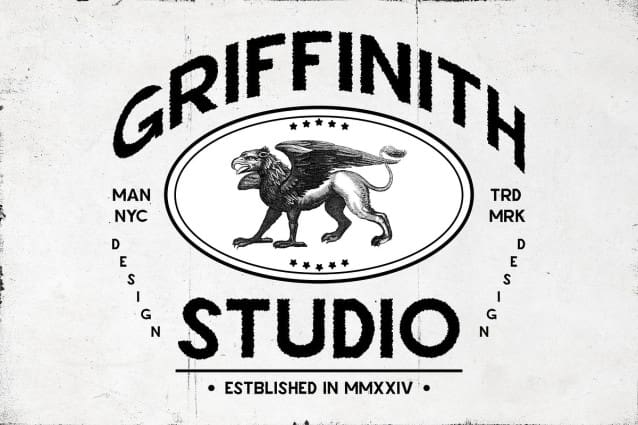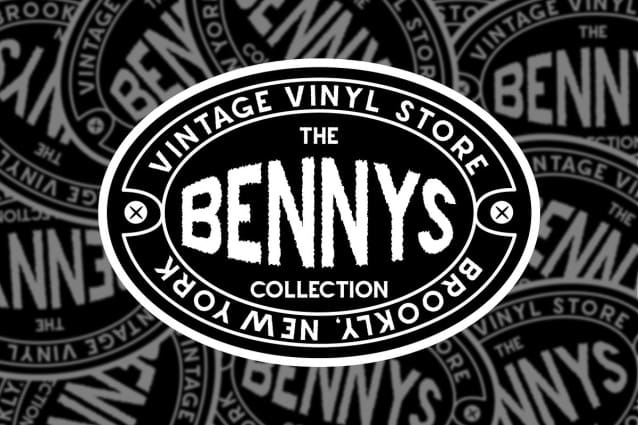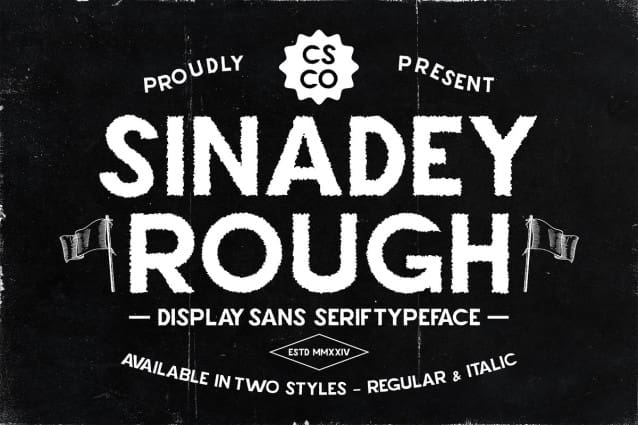
Sinadey Rough Font
Sinadey Rough Font is a modern sans-serif font that combines a clean, contemporary look with a touch of cuteness. Its streamlined sans-serif shapes offer a minimalist and modern aesthetic, while the rounded and friendly design elements introduce a playful, cheerful feel.
Unique Rough Effect for Added Dimension The rough effect provides Sinadey Rough with a textured, uneven quality, adding visual dimension and a casual, imperfect personality. This unique texture enhances the font’s character, making it stand out with a bold and distinctive appearance.
Blending Modern Minimalism with Playful Charm This font masterfully balances modern simplicity with a playful, charming twist. Sinadey Rough’s combination of clean lines and cute design elements creates a font that is both engaging and memorable, perfect for projects that aim to convey a fun and friendly message.
Versatile for Various Applications From vibrant promotional campaigns to whimsical branding, Sinadey Rough’s playful yet bold design makes it a versatile choice for a range of creative projects. Its cheerful character and distinctive texture ensure that your designs stand out with a unique and inviting look.